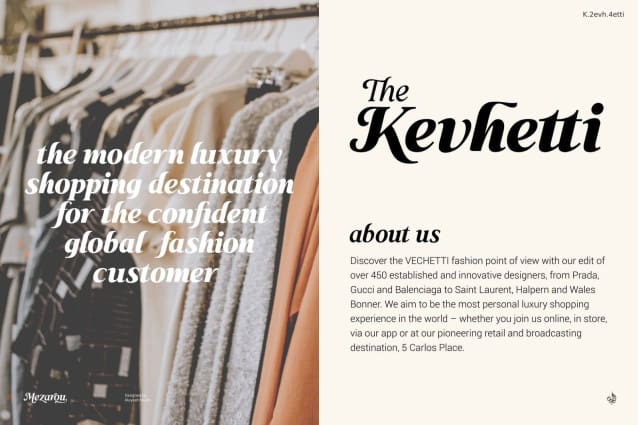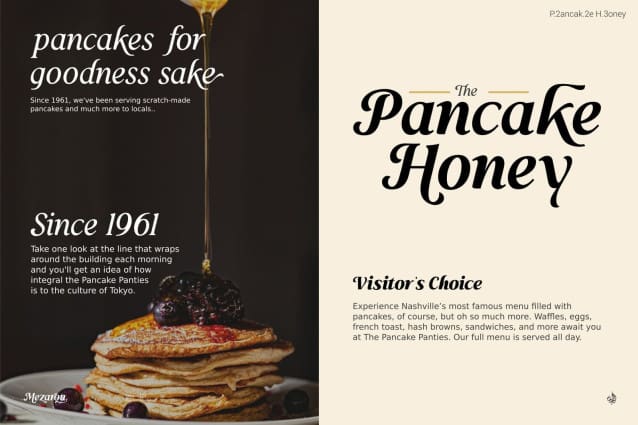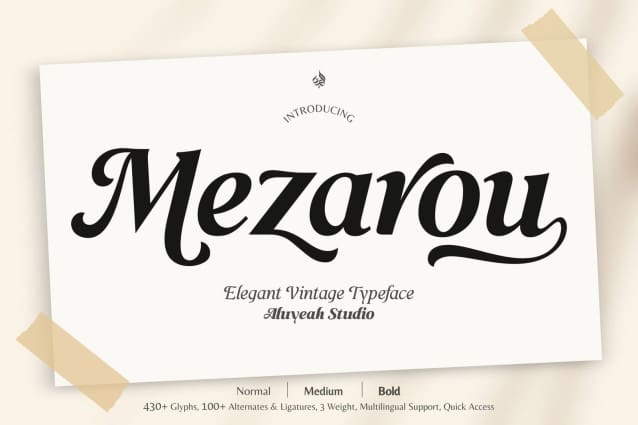
Mezarou Font
Mezarou Font, an elegant and vintage typeface perfect for adding a touch of retro style to your projects. Coming with 100+ alternates and ligatures, Mezarou Font gives you endless possibilities for creating unique designs. Available in 3 different weights for added versatility. And with quick access to alternates characters, you can effortlessly create stunning layouts with this timeless font. It can be applied to many areas of design. Very suitable for packaging, apps, magazine, headline, website, ads and all type of design project you have.